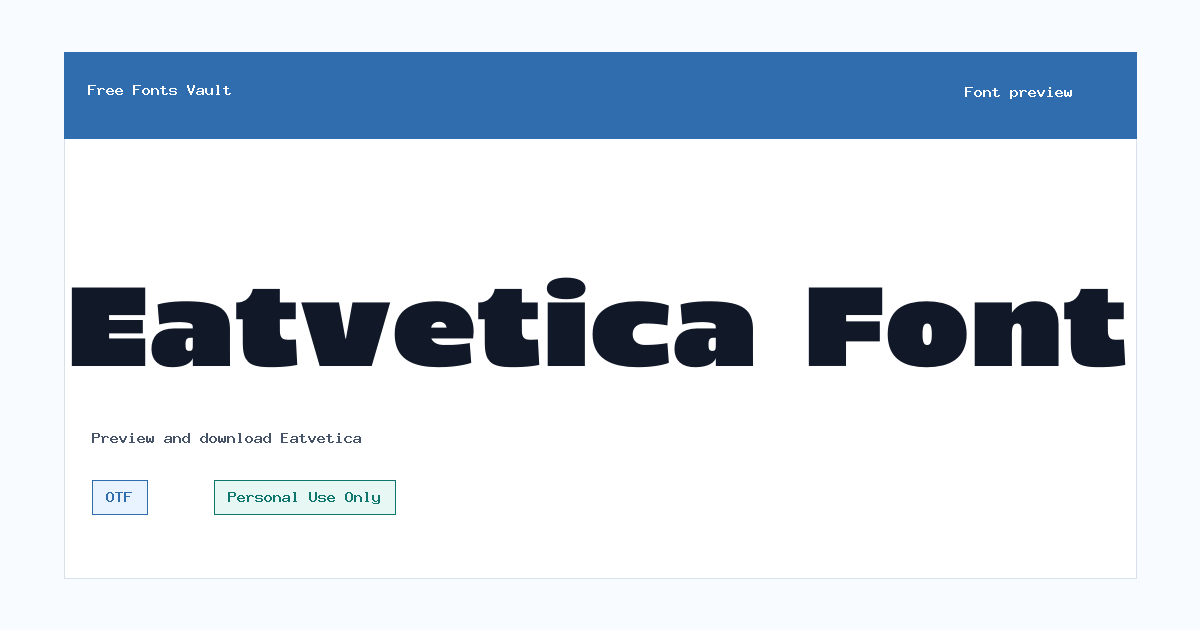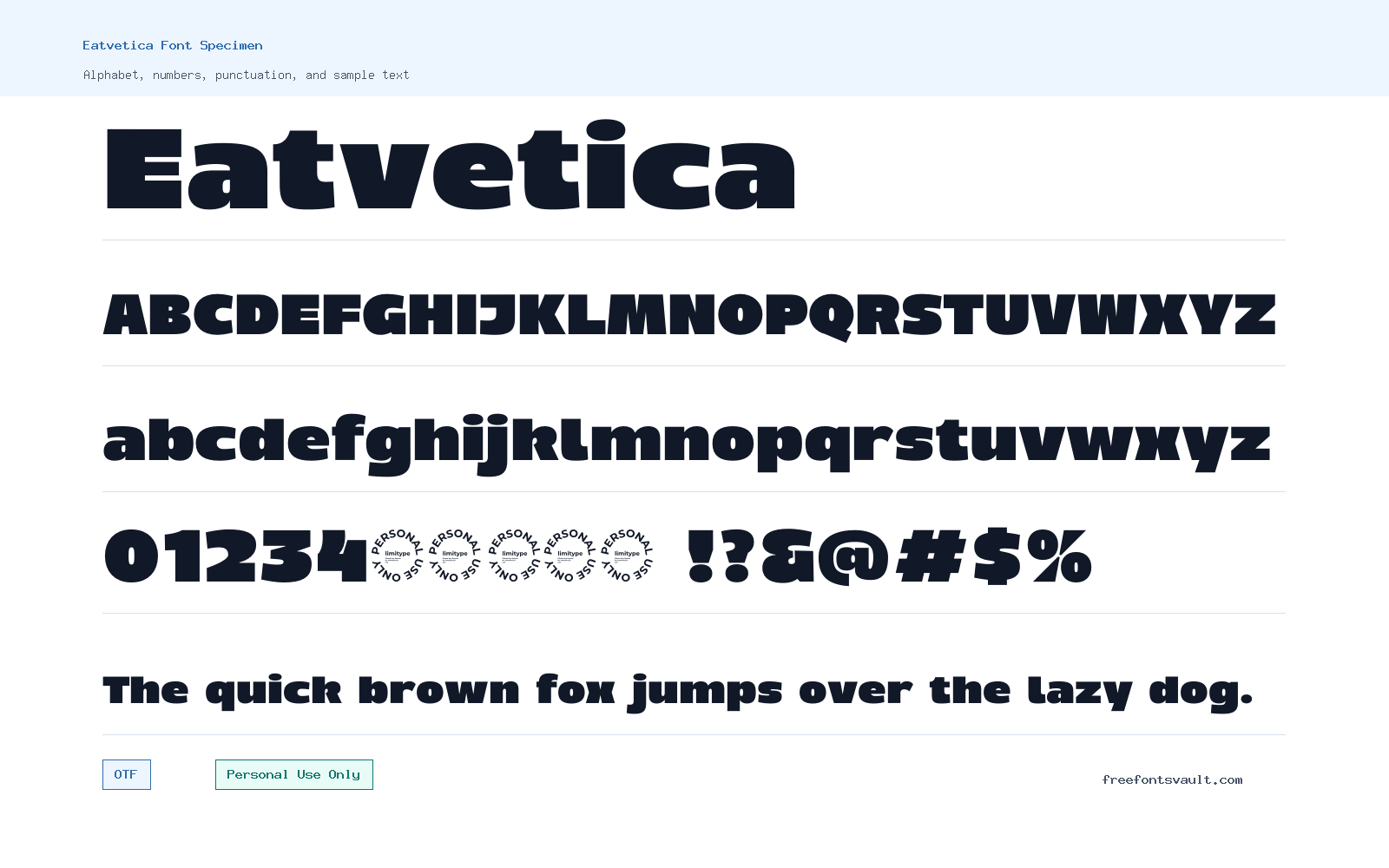
Eatvetica
Eatvetica font.
Eatvetica is a bold display font family by Limitype, offered in demo OTF files for personal-use projects. It works best when the text is short, large, and meant to stand out, such as a title, poster heading, label, or social graphic.
About Eatvetica
Eatvetica has a strong display look with two demo styles: a regular version and a rounded version. The regular style gives the font its main bold personality, while the rounded style softens the edges for a friendlier feel. Both styles are normal-weight OTF fonts, so they are easy to test in most design apps that support OpenType fonts. Because the family is built for display use, it is better for a few words than for long reading sections.
- Bold display style suited to short, large text
- Poster titles, headline graphics, and event artwork
- Labels, badges, packaging mockups, and casual display layouts
What is Eatvetica best used for?
Eatvetica is best for short display text such as headlines, posters, labels, badges, and social graphics. It is not a good choice for long paragraphs.
Should I use the regular or rounded style?
Use the regular style when you want a stronger display look. Try the rounded demo when the design needs a softer or more casual title.